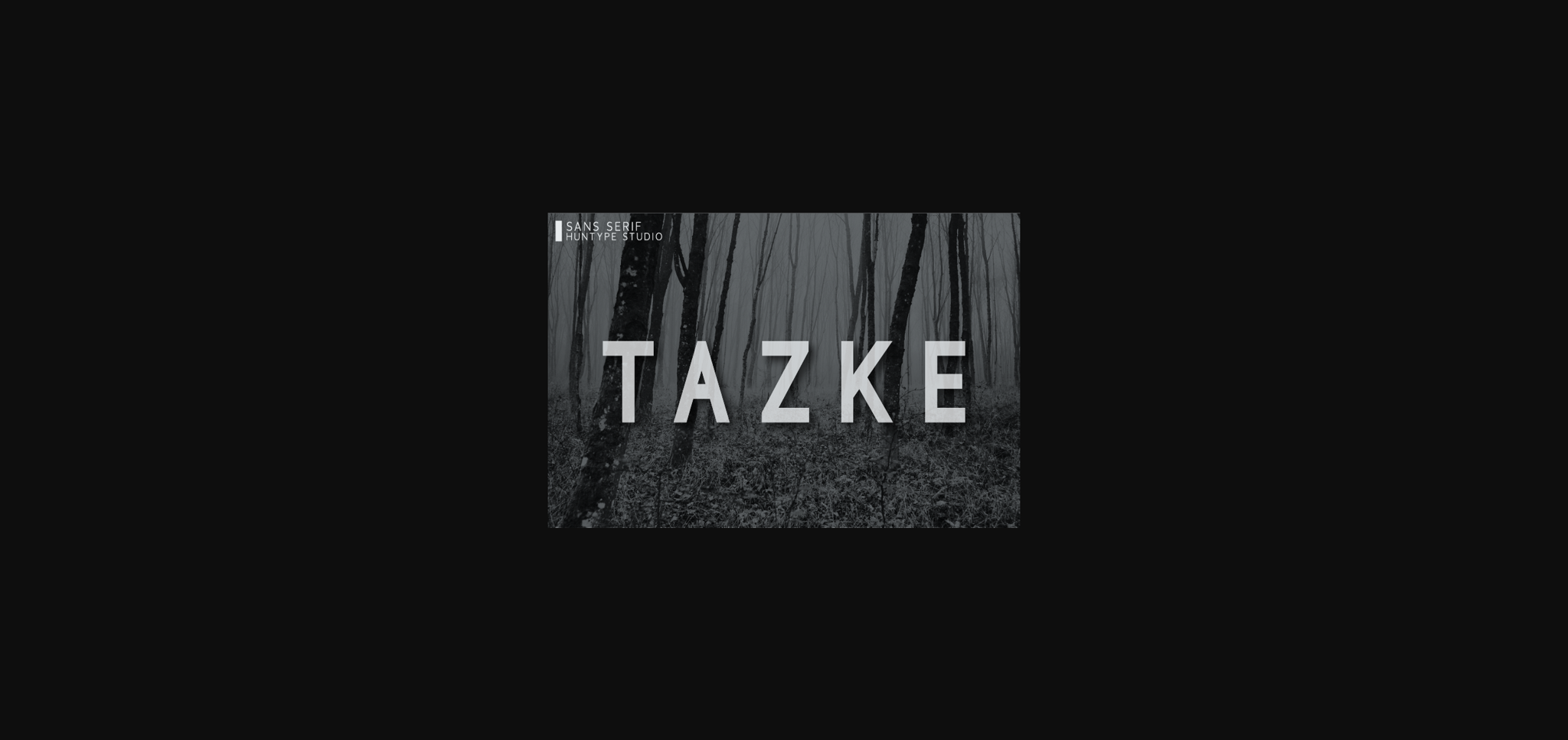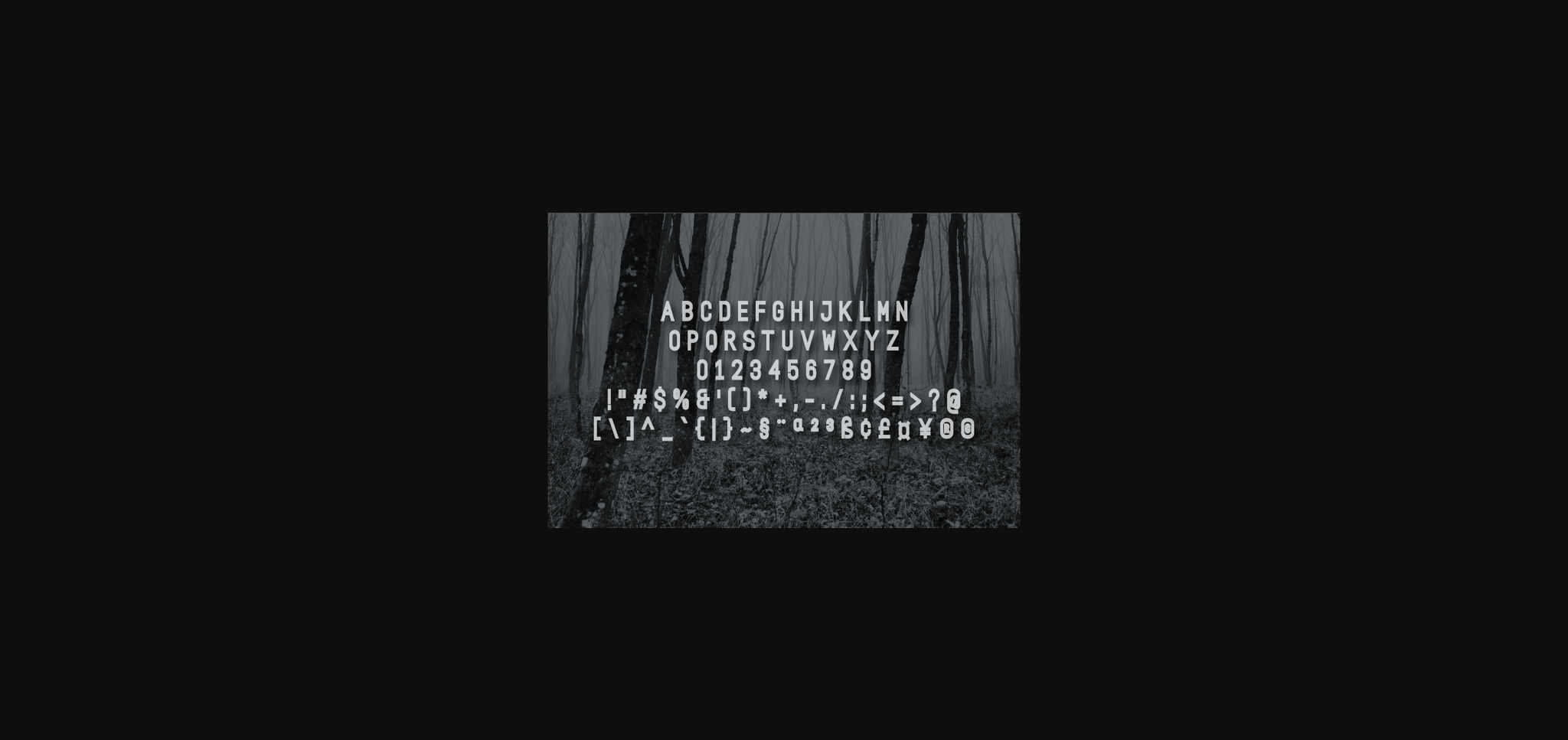
HomeSans Serif FontsTazke Font Sans Serif Fonts Tazke Font FacebookXPinterestWhatsApp 1 of 4 ... Tazke Font Poster 2... Tazke Font Poster 3... Tazke Font Poster 4... About Tazke Font Tazke is a modern and classy sans serif font. It’s perfect for logos, quotes, magazines and much more! DOWNLOAD NOW People also explored Obiscent Font Christmas Party Font Mother’s Day Heart Font Peonella Font Bunny Font Baseball Champs Cantika Font Blackbeard Font Black Stones Font 387 0 TagsTazkeTazke Font Previous articleZackery FontNext articleColerone Font LEAVE A REPLY Cancel reply Comment: Please enter your comment! Name:* Please enter your name here Email:* You have entered an incorrect email address! Please enter your email address here Website: Save my name, email, and website in this browser for the next time I comment. Personal Use Free Americana Personal Use Free Read more about this font Bintang Noela Personal Use Free Read more about this font The Royal Personal Use Free Read more about this font Bethania Personal Use Free Read more about this font BLOG Best Fonts for YouTube Videos: Make Your Thumbnails Stand Out Best Fonts for YouTube Videos: Make Your Thumbnails Stand Out Choosing the right font can make a massive difference in how your YouTube videos perform.... To increase your work productivity, choose the most readable fonts. Top 10 Handwritten Fonts That Elevate Your Designs Where to Buy American Fonts Online in 2024